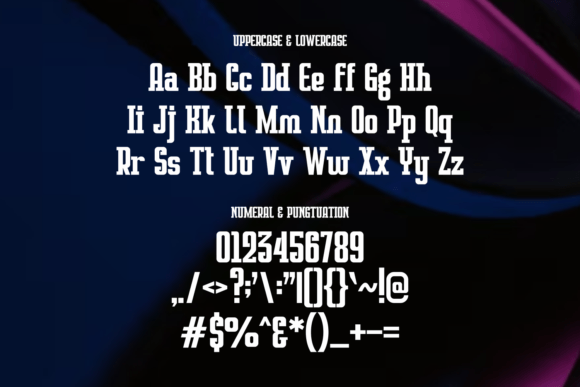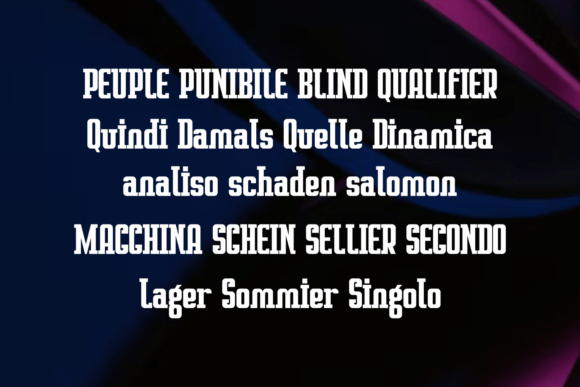
Drepos Font: Elevate Your Designs with a Cool and Modern Display Font
In the world of design, typography plays a crucial role in conveying messages, expressing creativity, and capturing attention. A font can make or break a design, and that’s where Drepos Font comes in – a cool and modern display font that’s sure to elevate your designs to the next level. In this article, we’ll dive into the features, benefits, and uses of Drepos Font, and explore why it’s an incredible asset to your font library.
What is Drepos Font?
Drepos Font is a modern display font designed to make a statement. Its sleek lines, unique curves, and contemporary style make it perfect for a wide range of design projects, from branding and advertising to packaging and digital media. Whether you’re a designer, craftsperson, or DIY enthusiast, Drepos Font is an excellent addition to your typography arsenal.
Key Features of Drepos Font
- Modern and Cool Design: Drepos Font boasts a fresh and trendy design that’s sure to grab attention. Its clean lines, subtle curves, and geometric shapes create a visually appealing aesthetic that’s perfect for modern designs.
- High Versatility: Drepos Font is incredibly versatile, making it suitable for a wide range of design projects, from headings and titles to logos and branding materials.
- Excellent Legibility: Despite its modern and stylized design, Drepos Font remains highly legible, ensuring that your message is conveyed clearly and effectively.
- Wide Range of Applications: Drepos Font can be used in various design contexts, including print, digital, and web design, making it an excellent addition to your font library.
Benefits of Using Drepos Font
So, why should you choose Drepos Font for your design projects? Here are just a few benefits of using this amazing font:
- Instantly Elevate Your Designs: Drepos Font has the power to instantly elevate your designs, adding a touch of modernity and sophistication that sets your work apart from the rest.
- Save Time and Effort: With Drepos Font, you can save time and effort in your design process. Its versatility and legibility ensure that you can use it in various contexts, reducing the need to search for multiple fonts.
- Enhance Brand Identity: Drepos Font can help you create a consistent brand identity across various design materials, from business cards to billboards.
Who Can Benefit from Drepos Font?
Drepos Font is an excellent resource for a wide range of designers and craftspersons, including:
- Graphic Designers: Add a modern touch to your branding, advertising, and marketing materials with Drepos Font.
- Web Designers: Use Drepos Font to create stunning website headers, titles, and other typography elements.
- Logotype and Branding Experts: Create memorable and impactful logos and branding materials with Drepos Font.
- Crafters and DIY Enthusiasts: Add a professional touch to your handmade projects, such as crafts, signage, and party decorations.
In conclusion, Drepos Font is an incredible asset to your font library, offering a unique blend of modernity, versatility, and legibility. Whether you’re a designer, craftsperson, or DIY enthusiast, this font is sure to elevate your designs and help you create stunning visual content. With its wide range of applications and benefits, Drepos Font is an excellent choice for anyone looking to add a touch of sophistication and style to their work.